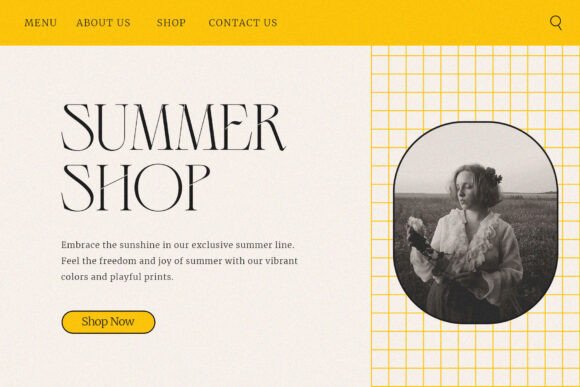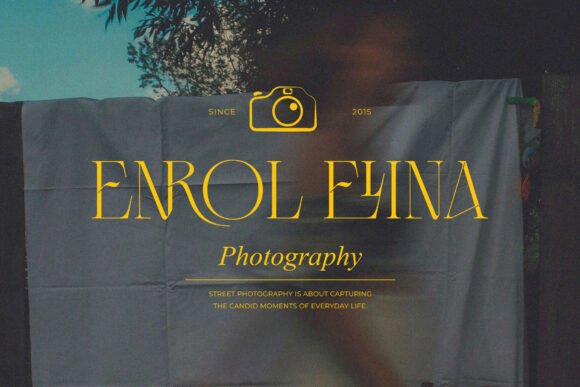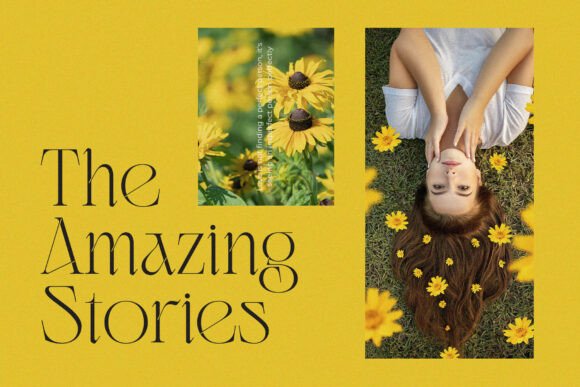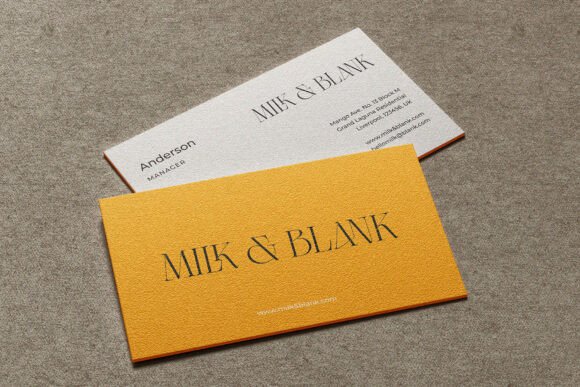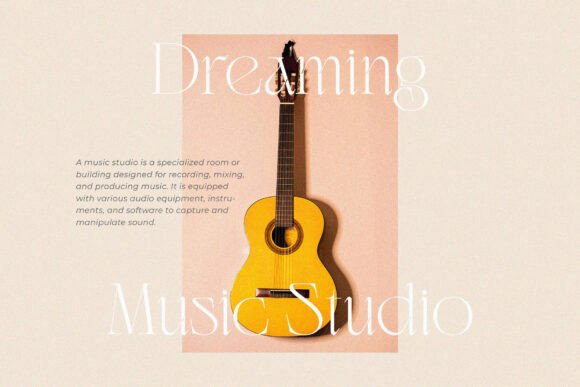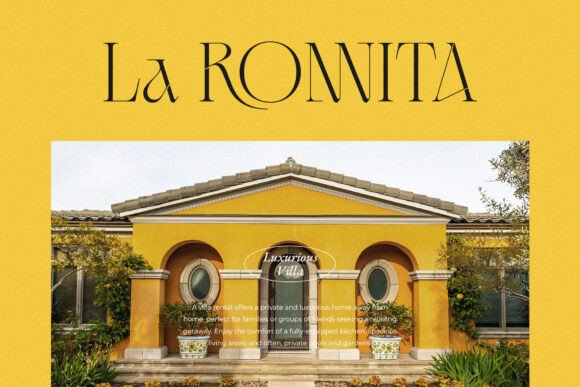
Introduction to Relimuss Font
Remember that moment when you’re brainstorming ideas for a new project and you stumble upon the perfect font that elevates your design to the next level? For designers, that ‘aha’ moment is what makes all the hard work worth it. And for those who are always on the lookout for the perfect typeface, we’re excited to introduce the Relimuss Font – a modern and classy display serif font that’s sure to take your creative project to new heights.
With its clean lines, smooth curves, and sleek design, Relimuss Font is the perfect addition to any design resource. Whether you’re working on a high-quality magazine, product packaging, or invitation, this font is sure to give your project an extra touch of class. Plus, with a transparent background option, you can easily customize your design to fit any background or style.
Key Features of Relimuss Font
- Unique, modern font style with a transparent background for seamless integration
- Includes 6 font styles with varying weights and styles for added versatility
Honest Review: Relimuss Font
As a designer, I’m always on the lookout for high-quality design resources that can elevate my creative projects. Recently, I had the chance to work with the Relimuss Font, and I’m excited to share my honest review.
What works well: ✨ I was impressed by the clean and modern aesthetic of the Relimuss Font. It’s perfect for a variety of design projects, from branding and marketing materials to digital products and websites. The font’s versatility and high quality make it a valuable addition to any design library.
- Customization: The font’s clean and minimalist design makes it easy to customize and pair with other design elements.
Limitations: ⚠️ While the Relimuss Font is a high-quality design resource, it may not be suitable for projects that require a more elaborate or ornate font. Additionally, the font’s simplicity may not appeal to designers who prefer more dramatic or eye-catching typography.
Overall, I’m impressed by the Relimuss Font and would recommend it to designers looking for a high-quality, modern font for their creative projects. With its clean design, transparent background, and free download, it’s a valuable addition to any design library.
Tips for Getting the Most Out of Relimuss Font
For the best results, use the Relimuss Font in conjunction with a high-quality image or graphic. You can also experiment with different font sizes and colors to create a unique and eye-catching design.
The Relimuss Font is ideal for use in creative projects such as brochures, flyers, and social media graphics. It’s also great for use in logos, business cards, and other marketing materials where a clean and professional design is required.